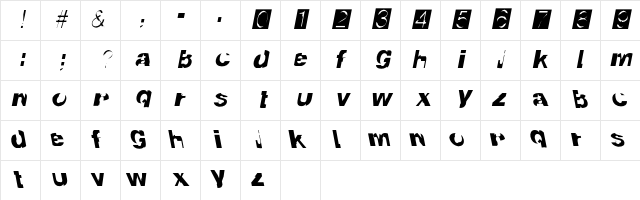
InternationalDisgrace Obleek Free Font
InternationalDisgrace Obleek
Style: Obleek
InternationalDisgrace Family
InternationalDisgrace Obleek
Complete InternationalDisgrace Obleek glyph index. Displaying only characters natively supported by InternationalDisgrace Obleek font.
Design Context for InternationalDisgrace
InternationalDisgrace is a composed and adaptable typeface that performs quietly and consistently across a wide range of design contexts.